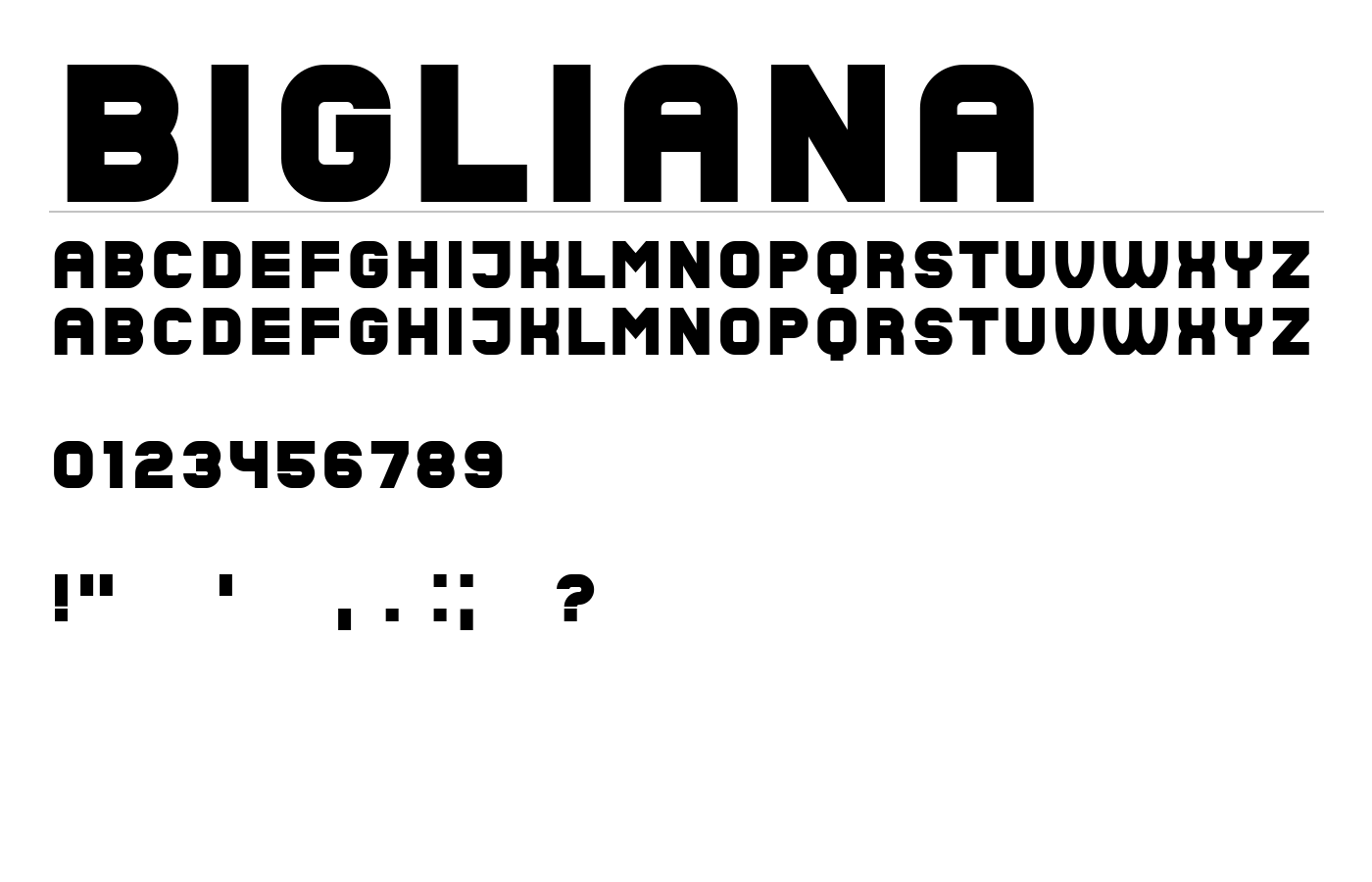
Bigliana is a bold, condensed sans serif font with a strong geometric influence and a modern, industrial feel. Its thick, uniform strokes and straightforward letterforms make it highly readable and impactful, ideal for headlines, posters, and branding that demands a confident, contemporary look. This font works especially well for projects seeking a solid, assertive style with a touch of retro-futuristic character.
Bigliana Font
About Bigliana Font